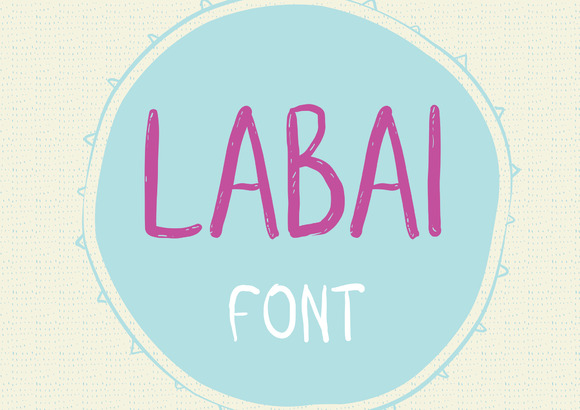
Unleash your creativity with Labai Font, a striking hand-drawn brush font crafted by Silvia Porcu, the visionary artist behind Patchpo Graphics. This captivating font exudes an alluring charm that will transform your designs into masterpieces.
Slip into the world of Labai Font and discover a world of boundless possibilities. Its elegant strokes, reminiscent of a skilled calligrapher's artistry, infuse your projects with a touch of sophistication. Each letter is meticulously crafted to convey a unique character, adding depth and personality to every word.
With Labai Font, you hold the key to creating designs that resonate with your audience. Its versatile nature makes it an ideal choice for a wide array of projects, from logos and branding to social media graphics and invitations. Embrace the freedom to experiment and express yourself authentically.
Embrace the beauty of imperfection with Labai Font. Its organic, hand-drawn texture adds a touch of warmth and approachability to your designs, making them relatable and inviting. Stand out from the crowd and capture the attention of your audience with designs that speak to their hearts.
Take your designs to new heights with Labai Font. Its elegant curves and flowing lines evoke a sense of grace and harmony, elevating your creations to new levels of sophistication. Prepare to be mesmerized as your words transform into captivating works of art.